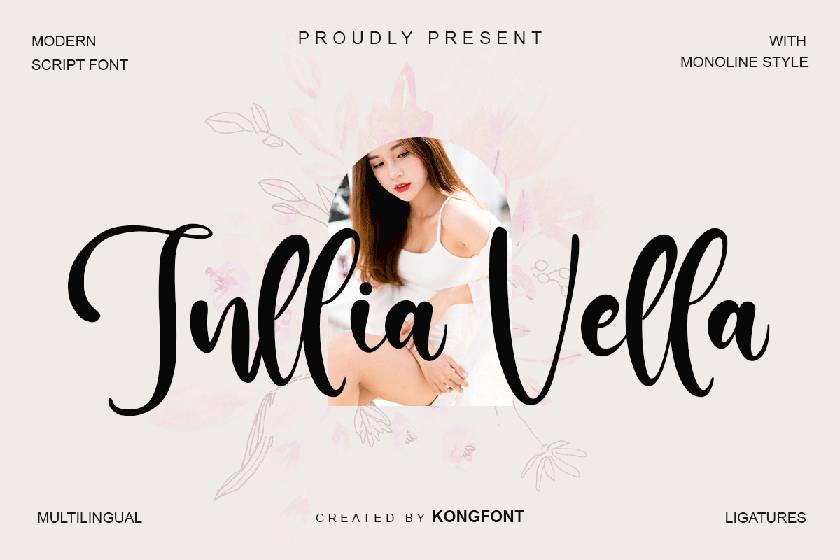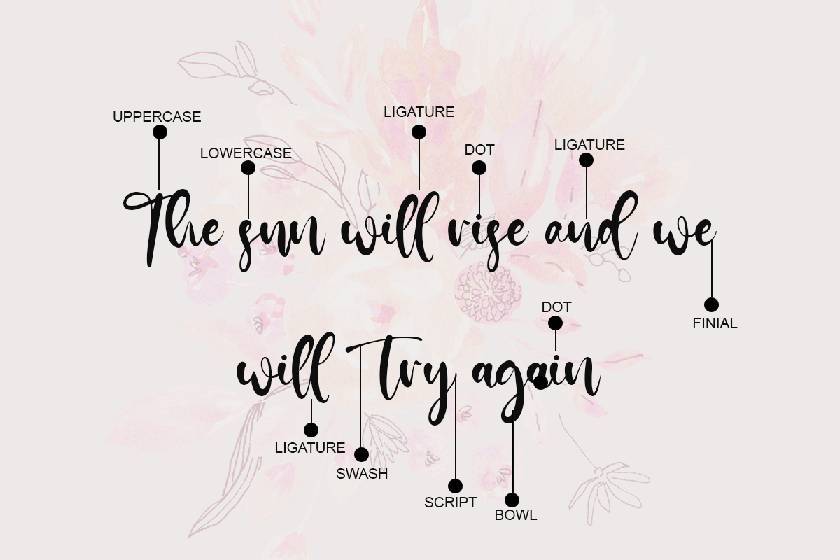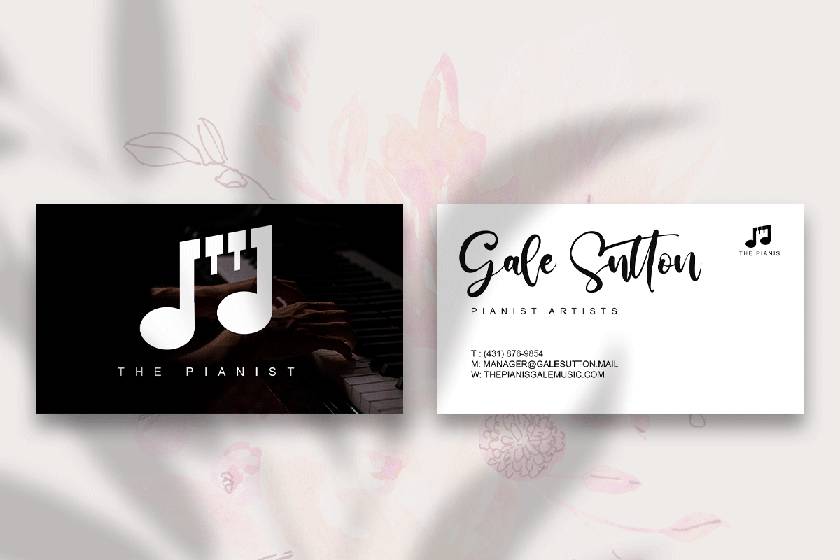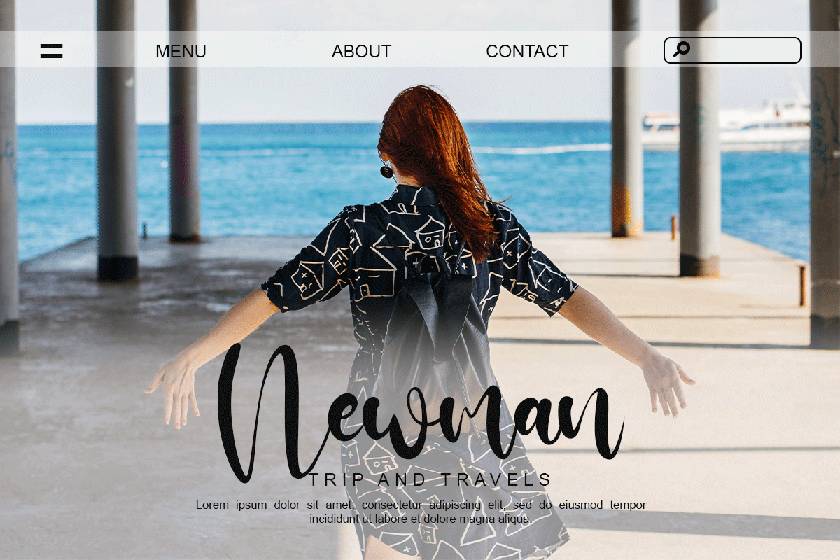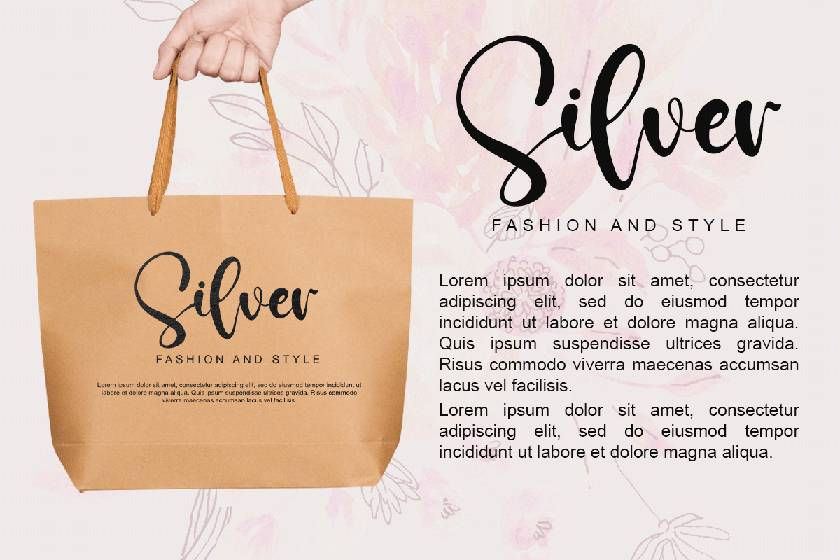
Jullia Vella is a charming script font featuring elegant, flowing strokes with a soft, handwritten feel. Its medium weight and smooth curves create a warm and inviting personality, making it ideal for creative branding, wedding invitations, and feminine design projects where a personal, stylish touch is desired. This font stands out in headlines and logos, adding a graceful yet approachable flair.
Jullia Vella Font
About Jullia Vella Font